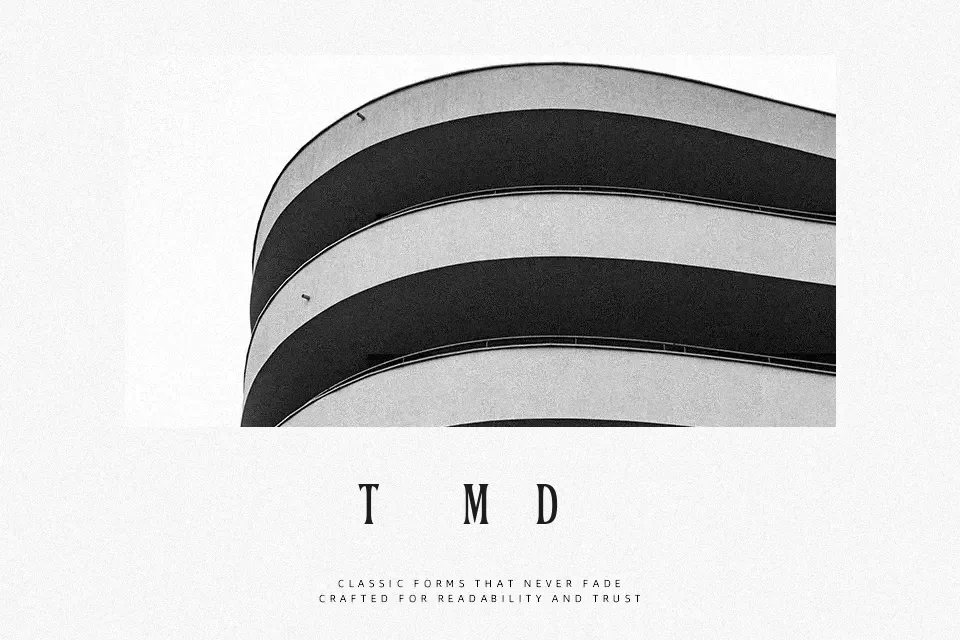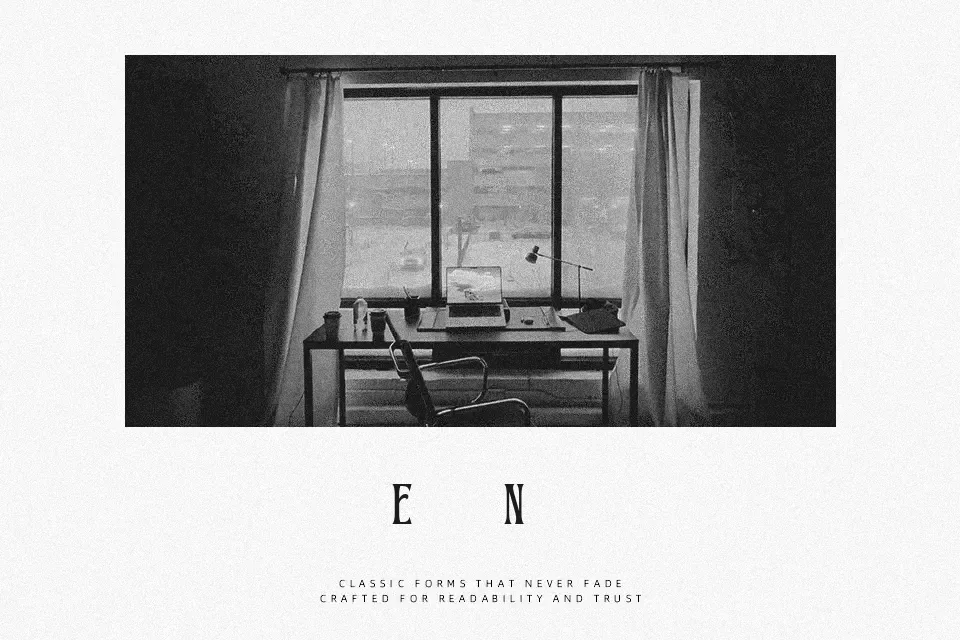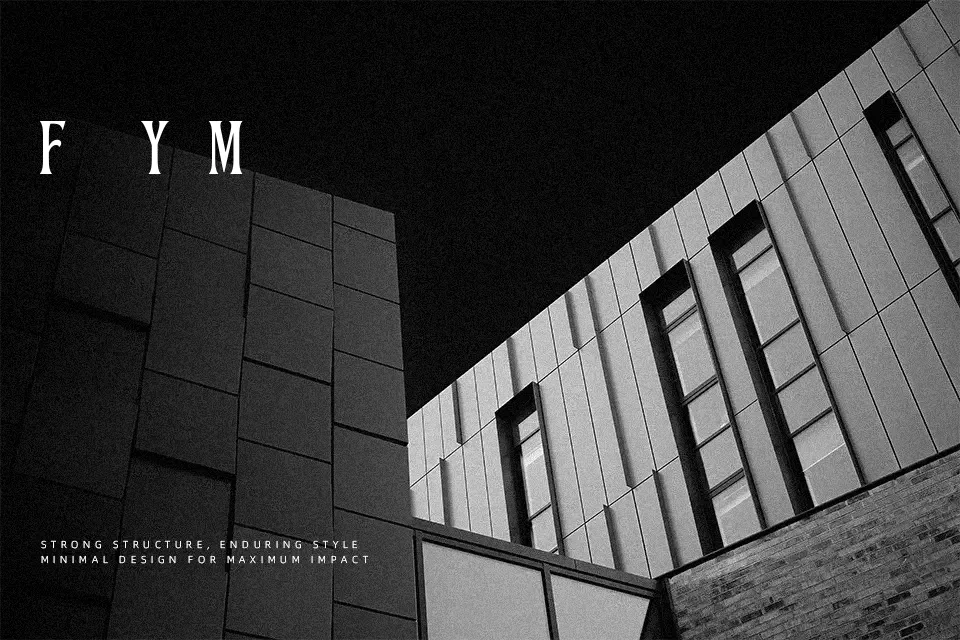
The Garland Font
The Garland Font features condensed serif letterforms defined by pronounced stroke contrast, sharp serifs, and tall vertical proportions. Measured character spacing gives uppercase headlines a structured visual rhythm that commands immediate attention on promotional posters, editorial mastheads, and luxury packaging. The disciplined stroke terminals maintain sharpness in medium display layouts. However, dense character spacing and delicate thin strokes impair legibility when scaled down to small body paragraphs. The typeface performs best when displayed at larger sizes where its refined details remain crisp.
Best For: luxury packaging labels, editorial magazine headlines, vintage apparel graphics, boutique storefront signage
Not Ideal For: continuous body text, mobile interface labels, small product ingredient lists, dense tabular data
Perfect for branding, headline, and logo, with a classic and display style.